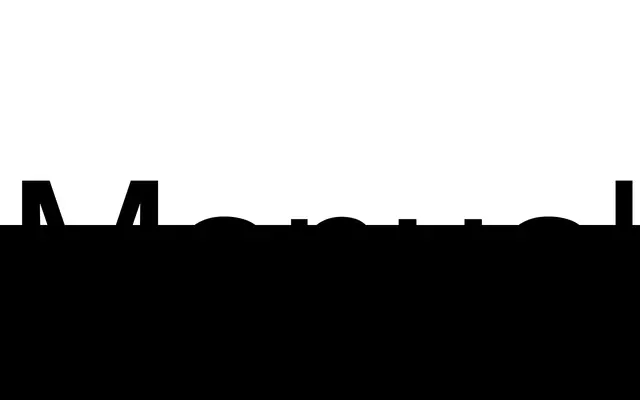
Manual Pozor Round
Setup Type · Ondrej Jób · 2018
A caps-only oblique geometric sans digitised from old Slovak warning signs, with soft rounded terminals that mimic the effect of enamel production on letterforms.
Designed by Ondrej Jób and released in 2018, Manual Pozor Round is the oblique companion to Manual Grotesk B, derived from the lettering used exclusively on Slovak warning signs rather than street markers. Seven styles run from Thin to Ultra with no stroke contrast and a narrow width, while rounded corners and filled joints reproduce the softening that occurred when letters were fired in enamel. The family covers over 100 languages across Basic Latin and Extended Latin in 237 glyphs.
A caps-only oblique geometric sans-serif with no stroke contrast, derived from Slovak warning sign lettering. Its rounded terminals and narrow width place it firmly in display rather than text use.